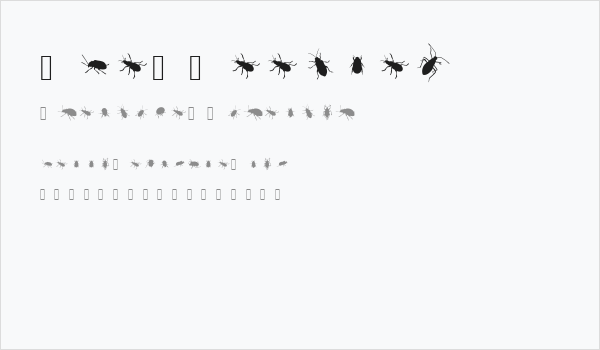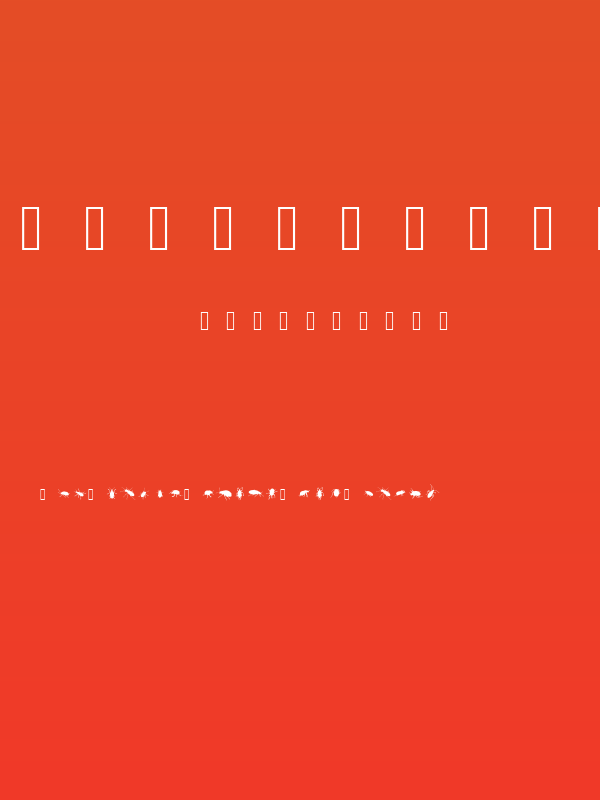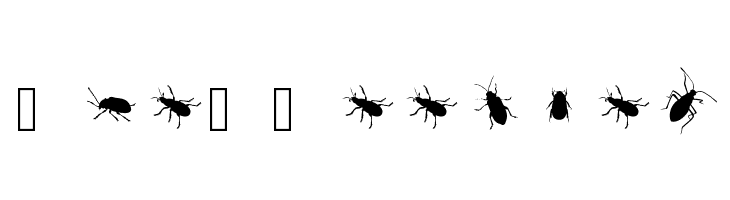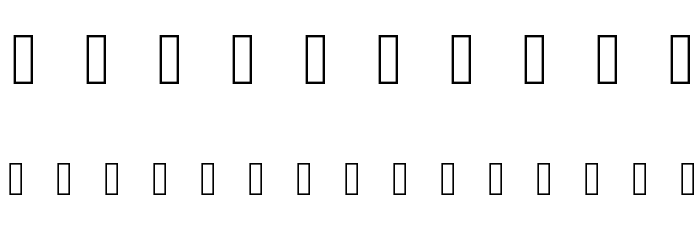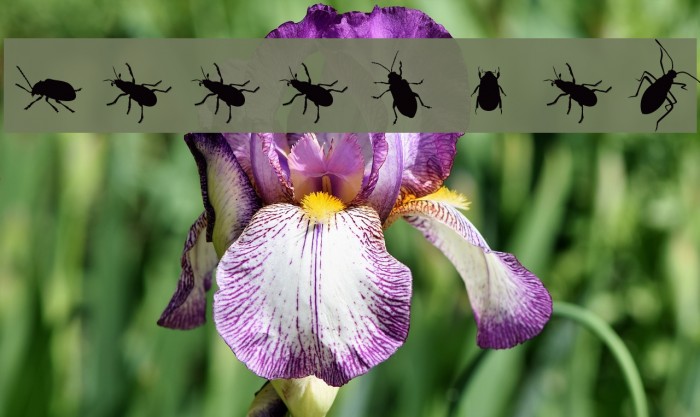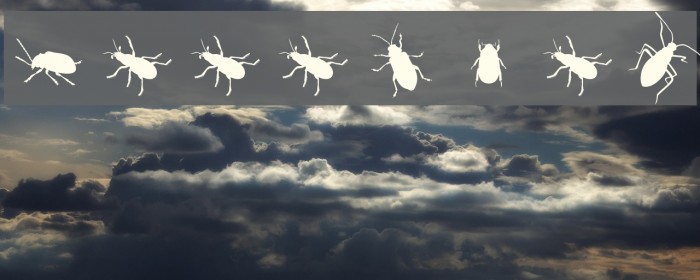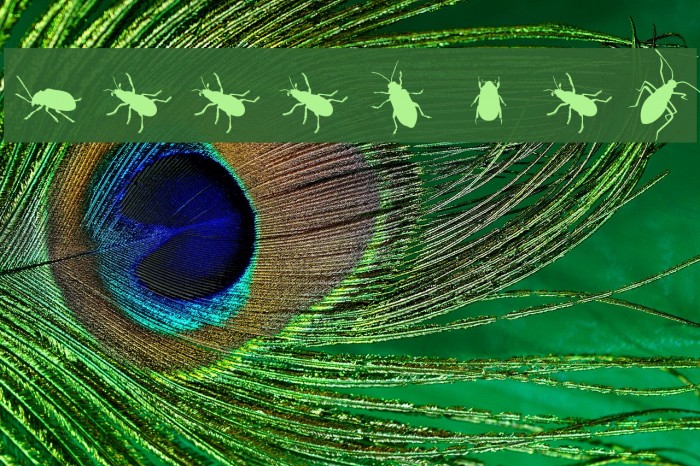
The Beetles Font
The Beetles Description
A decorative font featuring detailed black silhouettes of various beetles in place of standard alphanumeric characters, creating a playful and organic appearance. The glyphs are unique, each representing a different beetle species, with consistent sizing and solid fills.
| Character Spacing | Normal |
| Overall Style | Decorative, Playful, Organic |
| Use Case | Logos, Posters, Headlines, Themed graphics |
| Proposed Projects | Children’s books, nature-themed posters, entomology exhibits, educational materials, creative branding. |